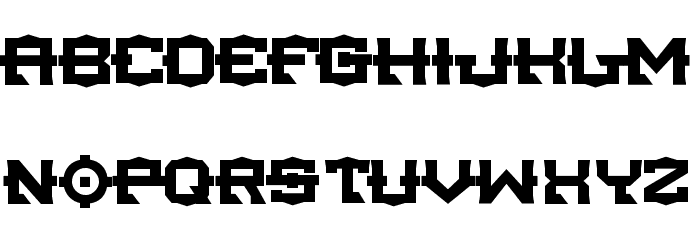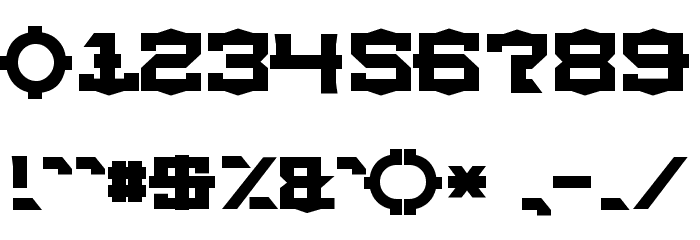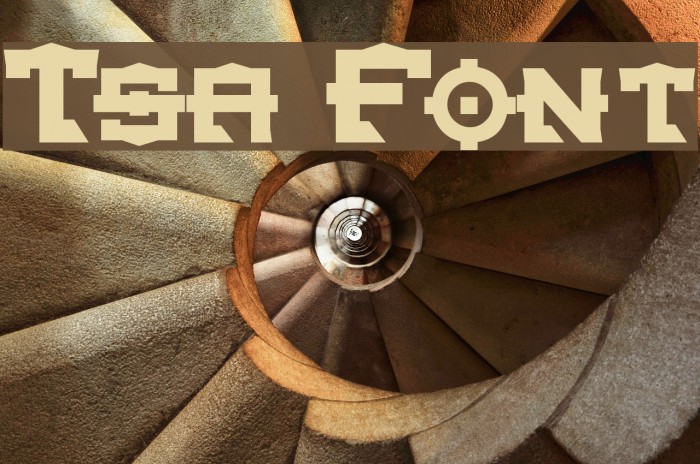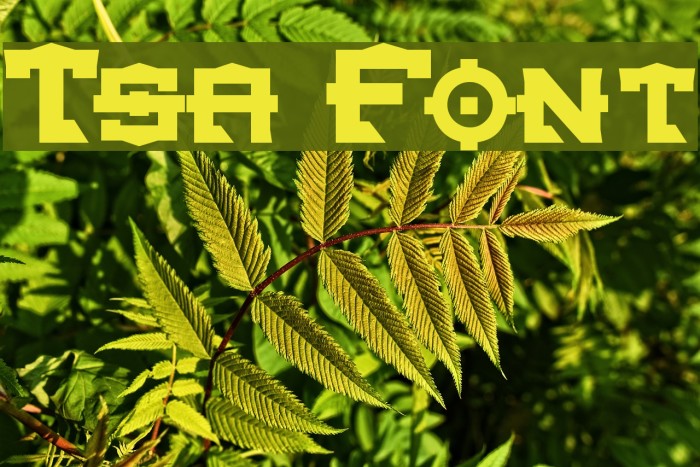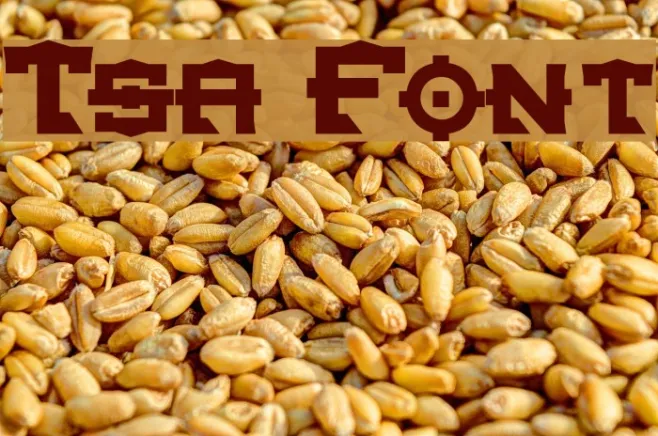
Tsa Font
This font features a bold and geometric design with a distinct industrial feel. The characters are constructed with thick, angular strokes, giving them a robust and mechanical appearance. The use of sharp edges and block-like shapes creates a sense of strength and durability. The font maintains a consistent weight throughout, contributing to its solid and impactful presence. The unique design elements, such as the circular cutouts in certain letters, add a modern and futuristic touch. This font is well-suited for projects that require a strong visual statement, such as branding for technology companies, video game titles, or industrial-themed designs.
A bold, geometric font with an industrial and futuristic style.
- Proposed Projects: Ideal for technology branding, video game titles, industrial-themed designs, and bold headlines.
- Overall Style: Modern, Industrial
- Use Case: Headlines, Logos, Branding